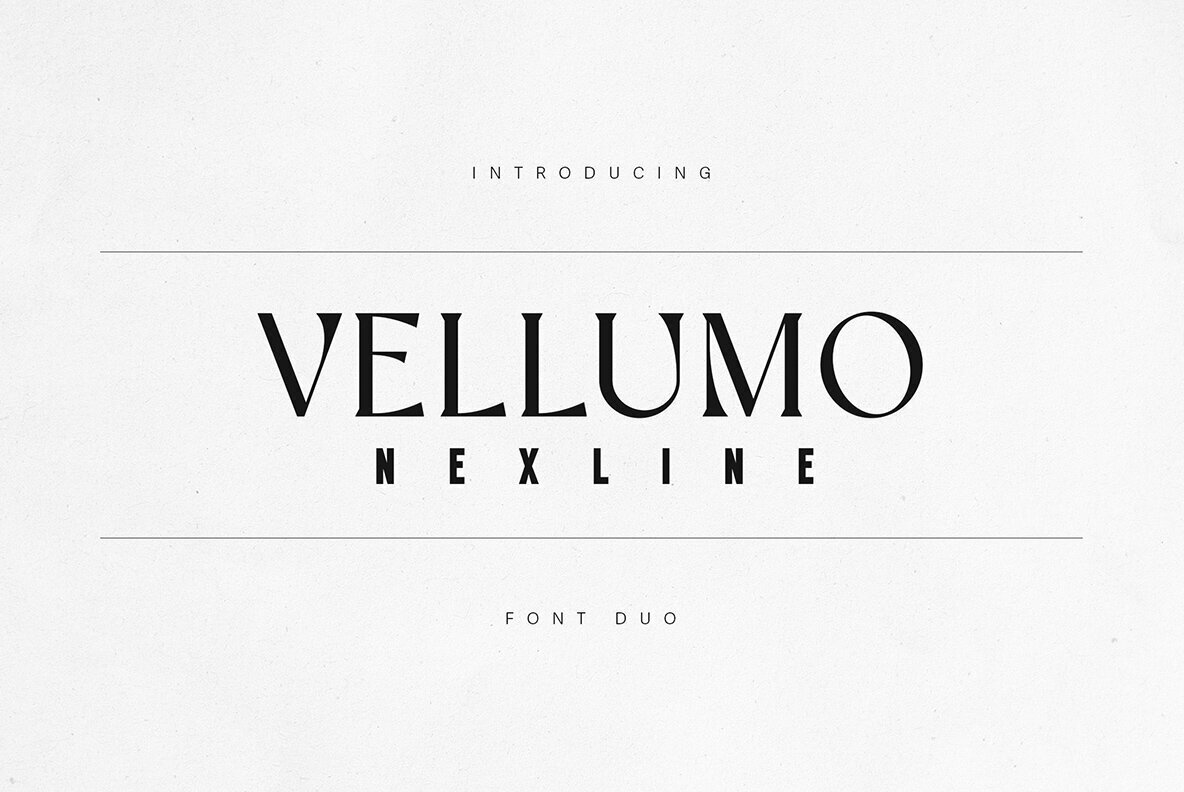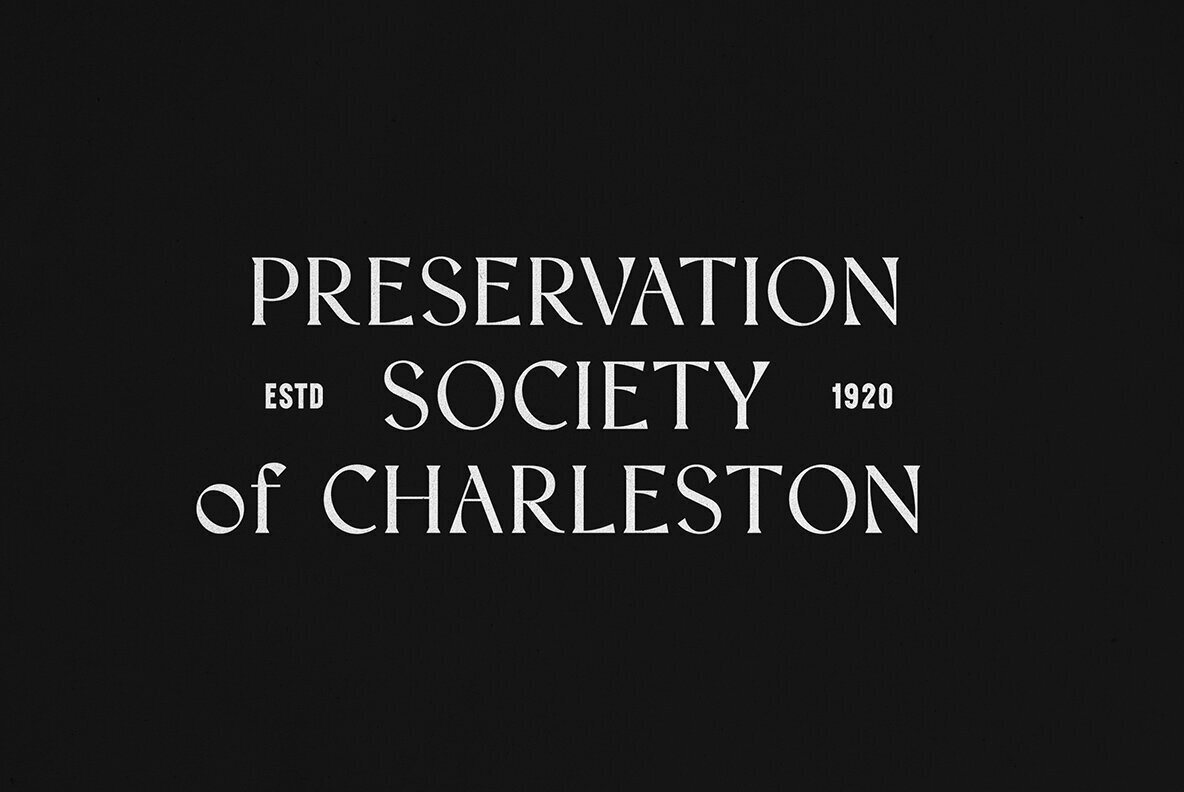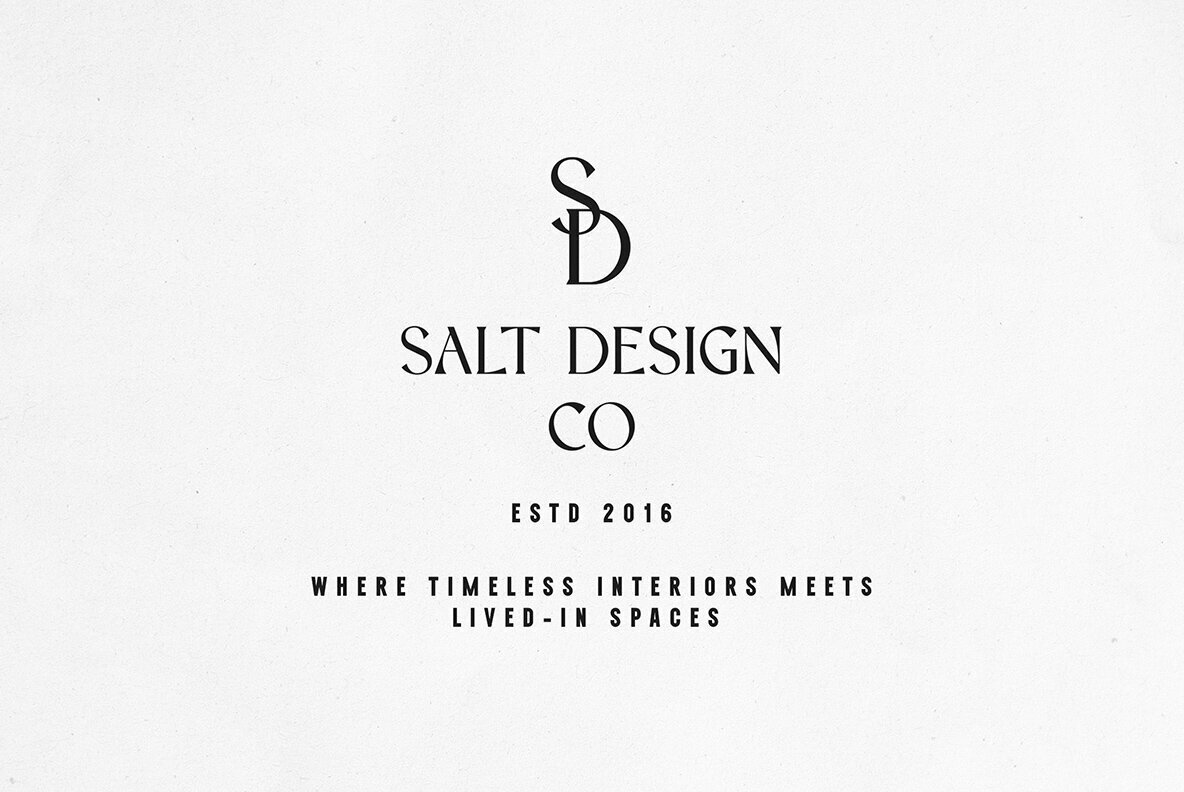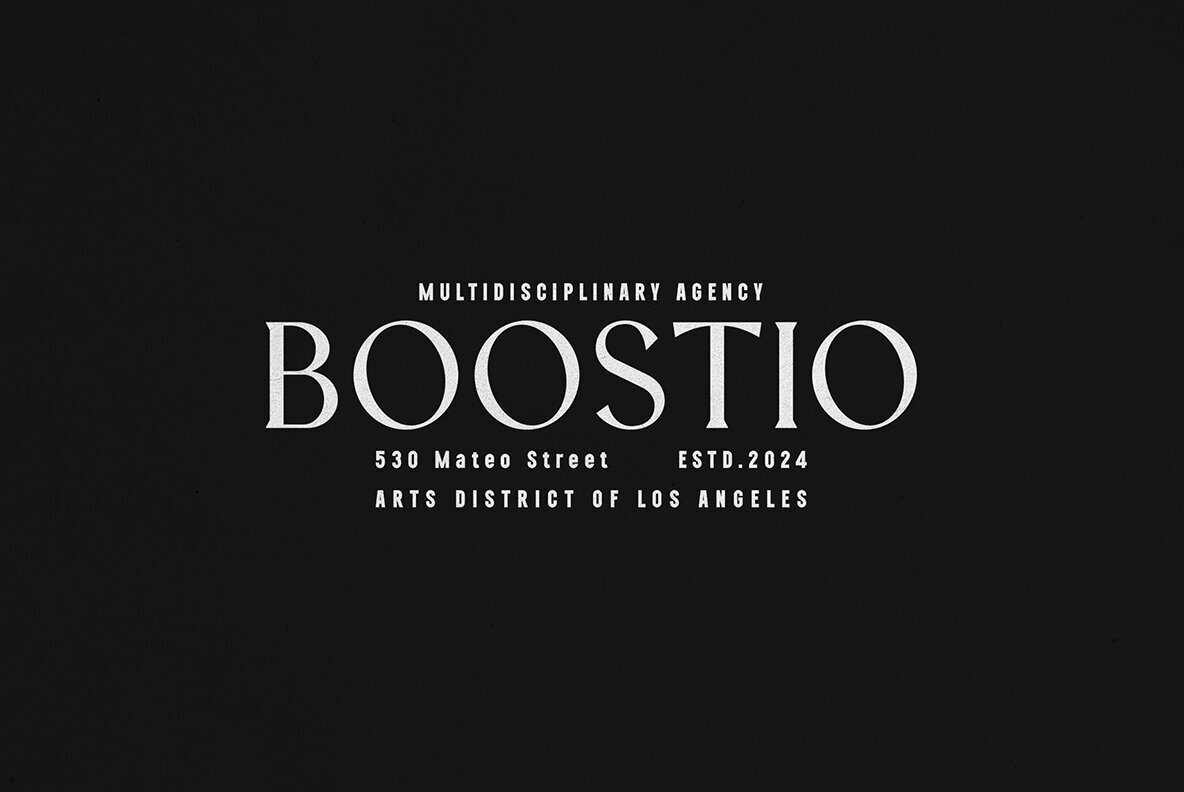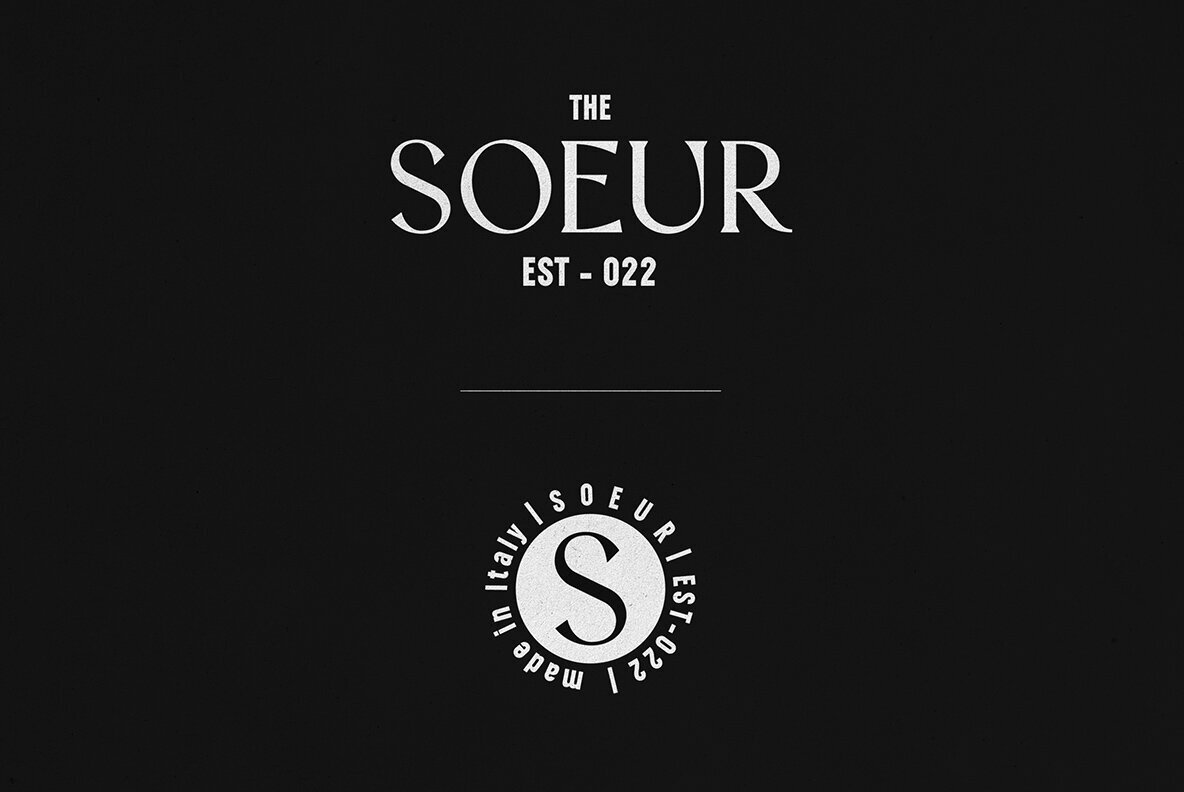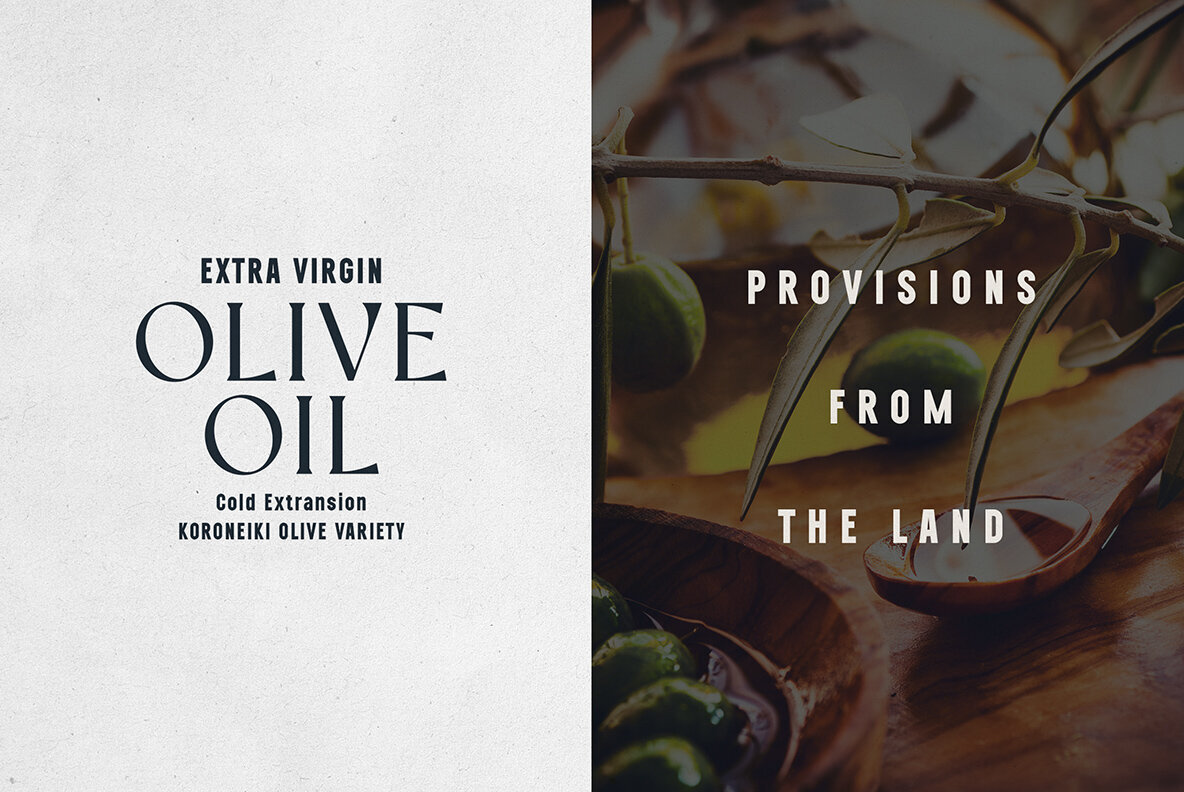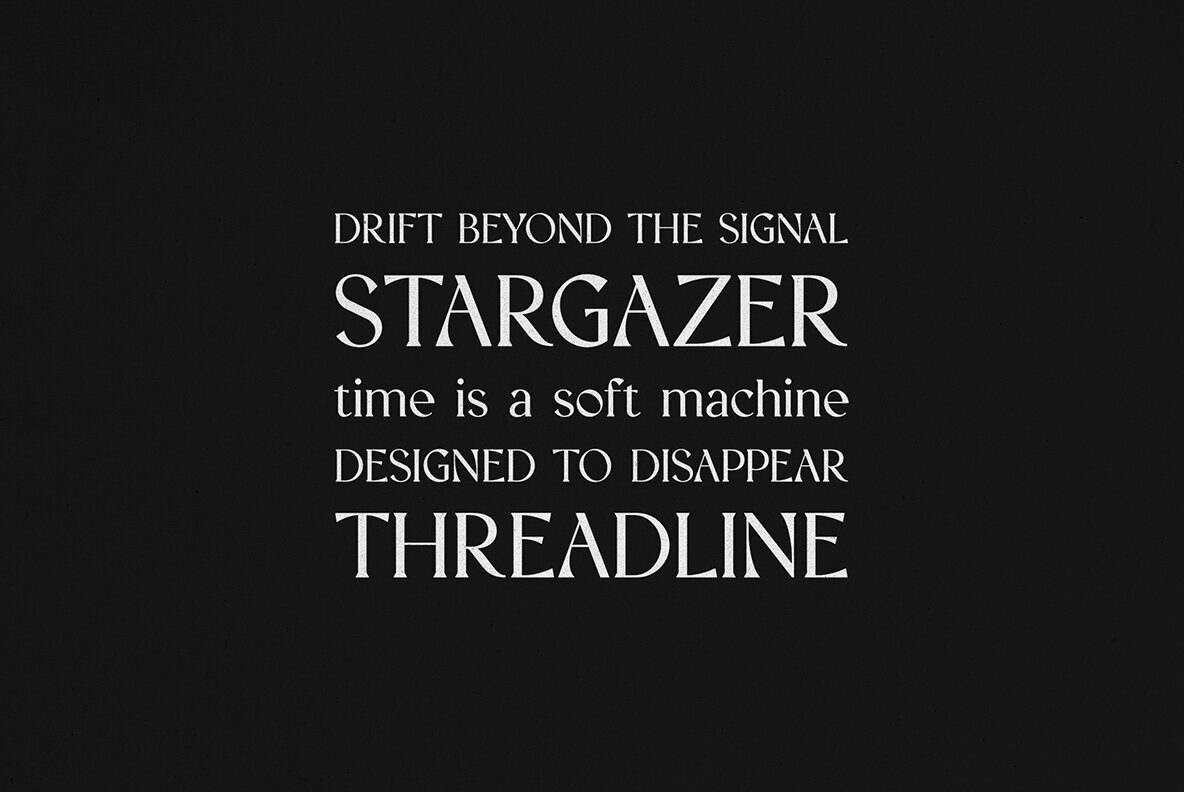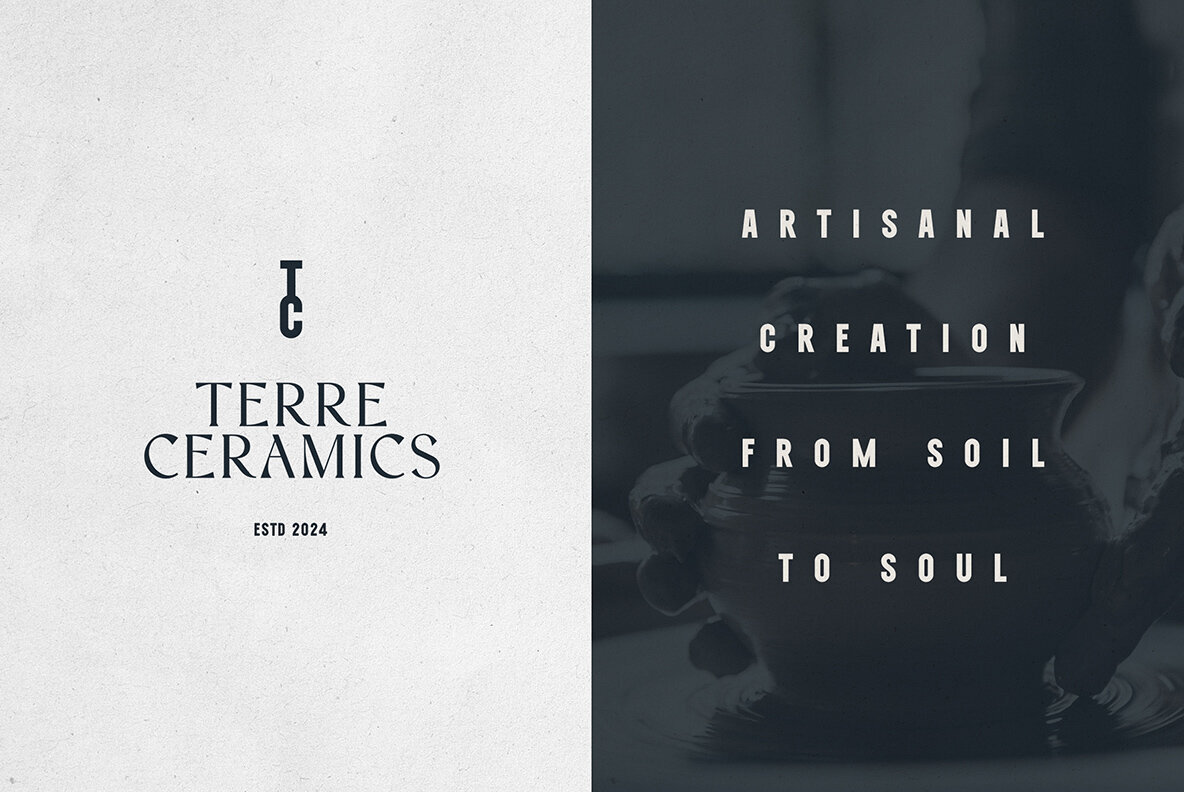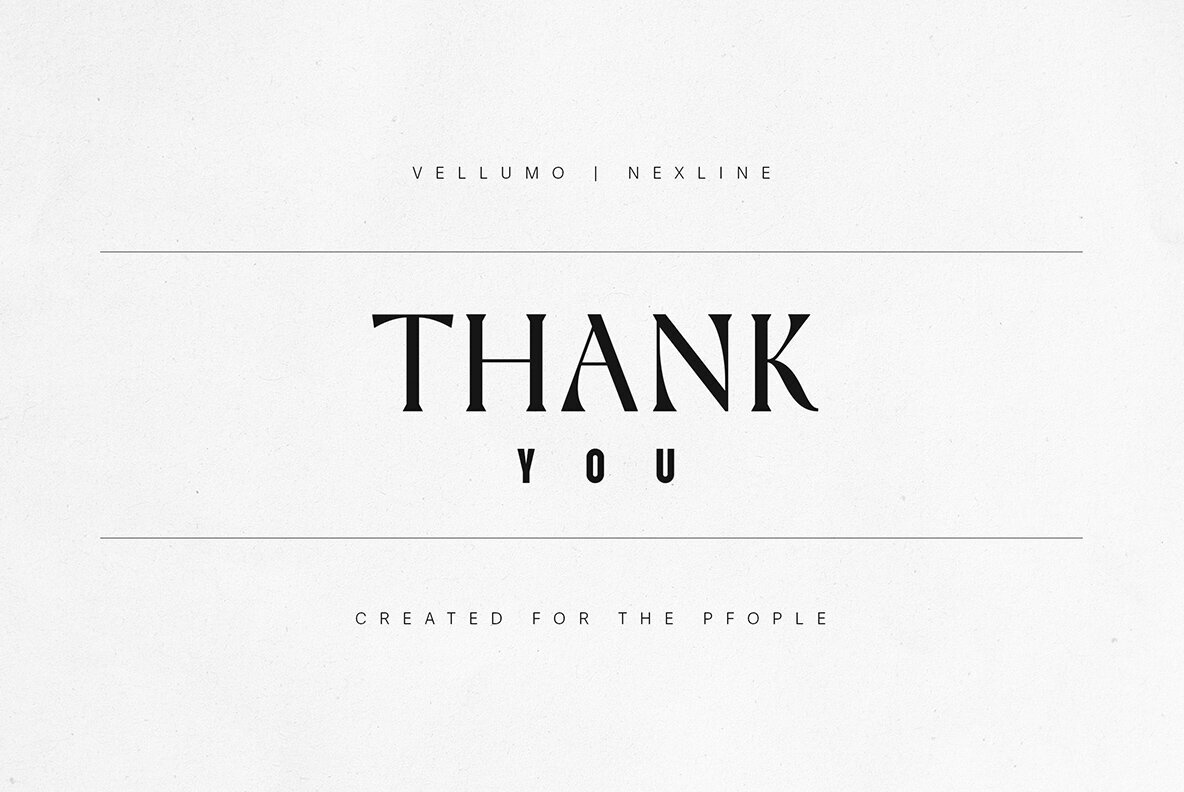
Vellumo and Nexline Font
Nexline
Vellumo
Vellumo and Nexline bring together refined elegance and contemporary minimalism for distinctive branding and editorial design. This luxury font pair blends the graceful, high-contrast details of Vellumo’s serif forms with the geometric clarity of Nexline’s sans serif. The result is a harmonious duo that supports confident layouts and visual clarity across print and digital applications. This font set is crafted for creative professionals seeking a modern aesthetic and understated sophistication. Ideal for luxury branding, fashion magazines, sleek digital experiences, and signature logos, Vellumo & Nexline ensures every design element stands out with balance and distinction. Use them together to create depth, structure, and an unmistakable sense of style in any project.Vellumo & Nexline — Modern Serif & Sans Font Duo